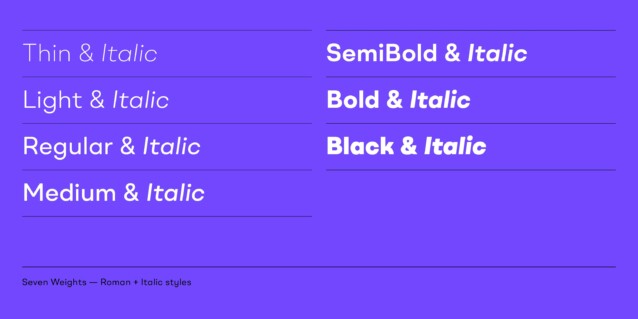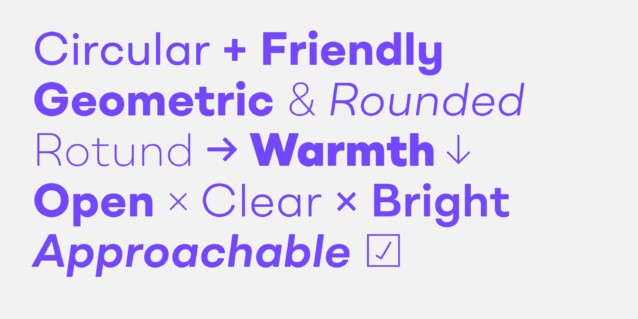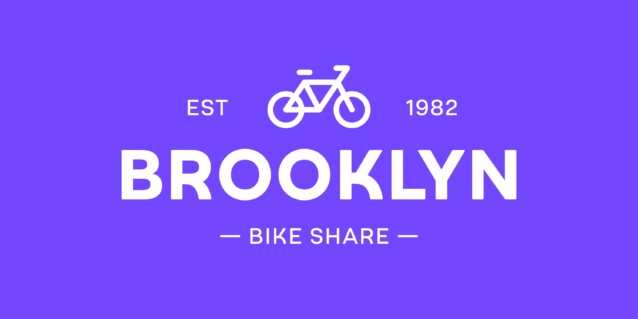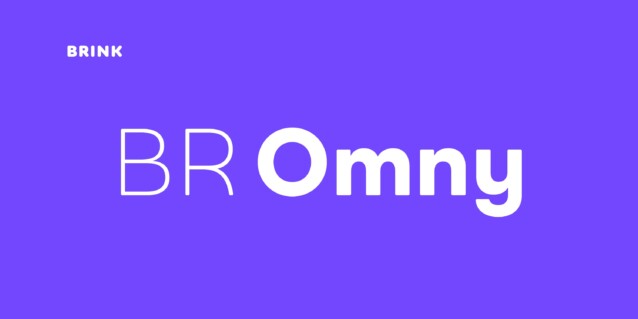
BR Omny Font Family
BR Omny Font is a geometric sans serif font family crafted & designed by Brink. It is based on a softened geometric framework with a confident and friendly persona. The family contains 7 weights ranging from Thin to Black with corresponding italics. It supports an ‘Extended Latin’ character set that provides support for 200+ latin based languages.